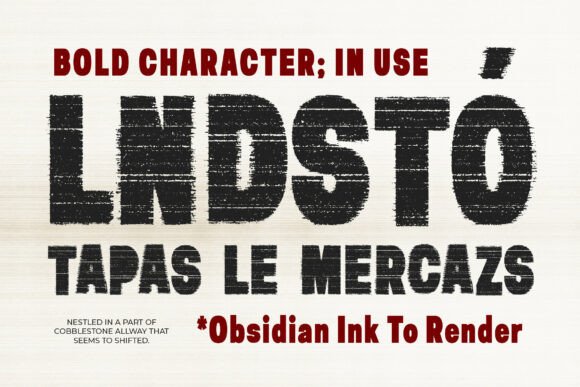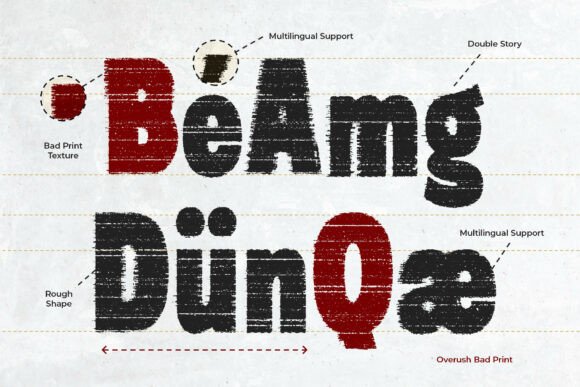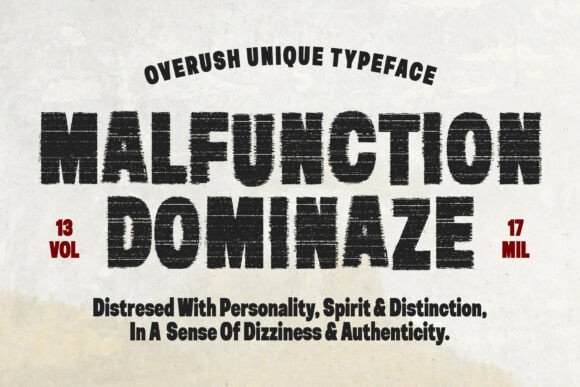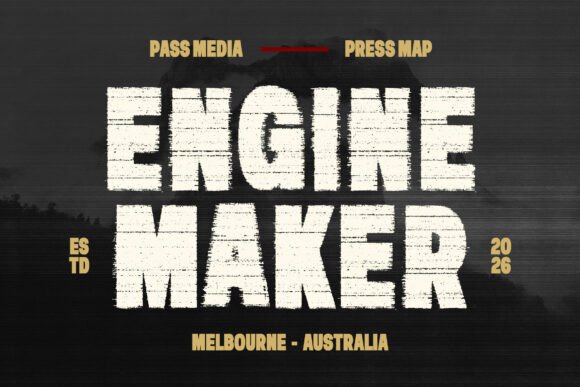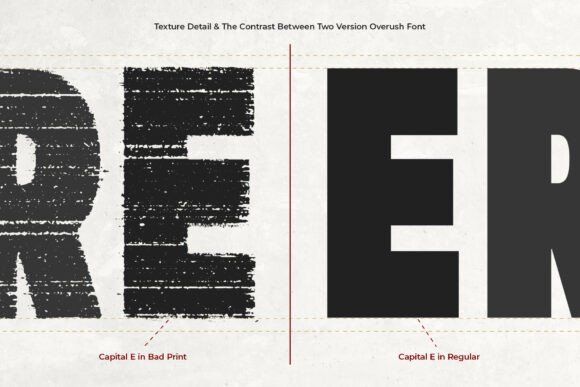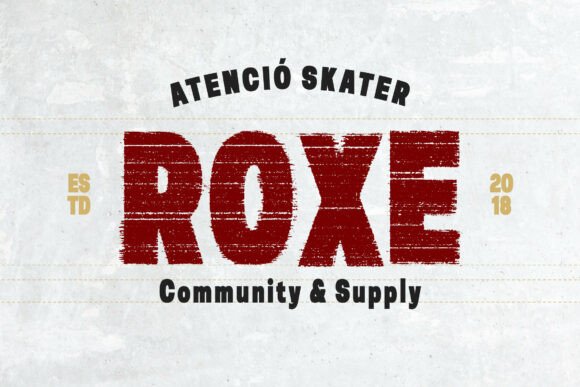
Introduction to Overush Font
Embrace the beauty of raw imperfection with Overrush, a heavy, bad-print display sans font.
Capturing the authentic, rugged soul of a vintage photocopy machine running out of ink, or a heavily weathered woodblock print, this typeface features dense, horizontal distressing and textured, eroded edges Overrush is engineered entirely for gritty headlines, industrial imagery, and bold counter-culture layouts.